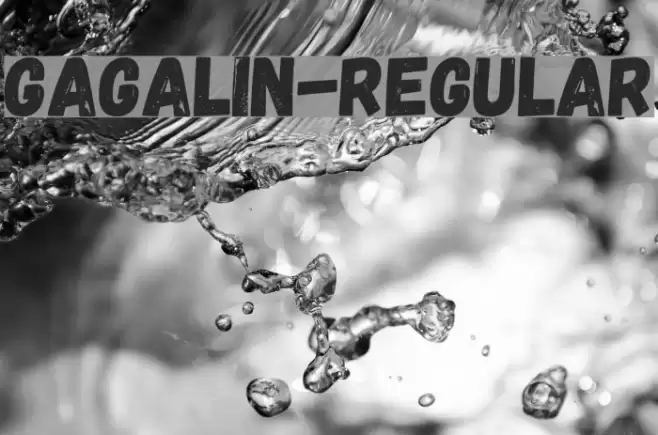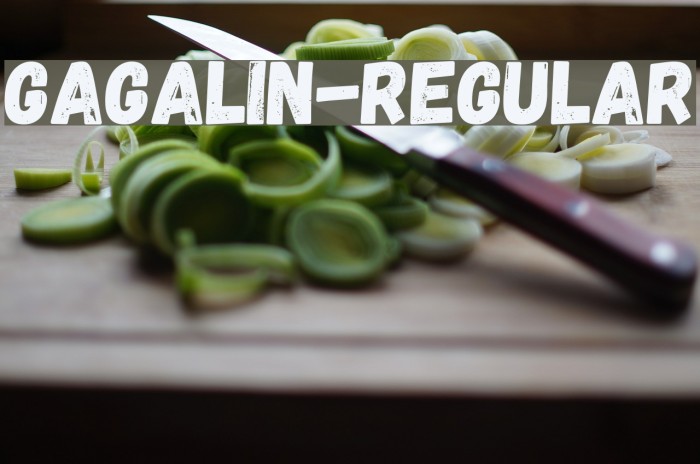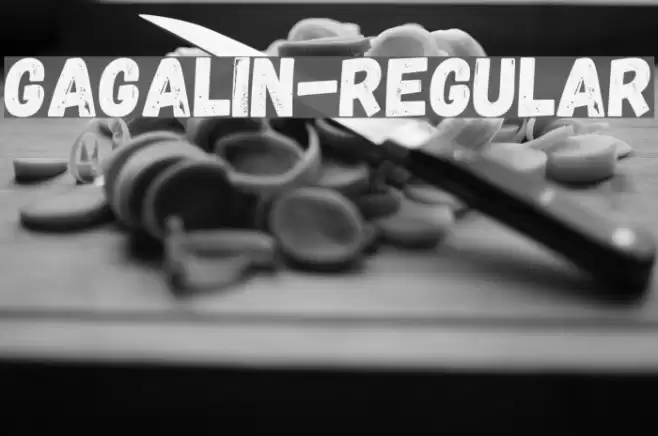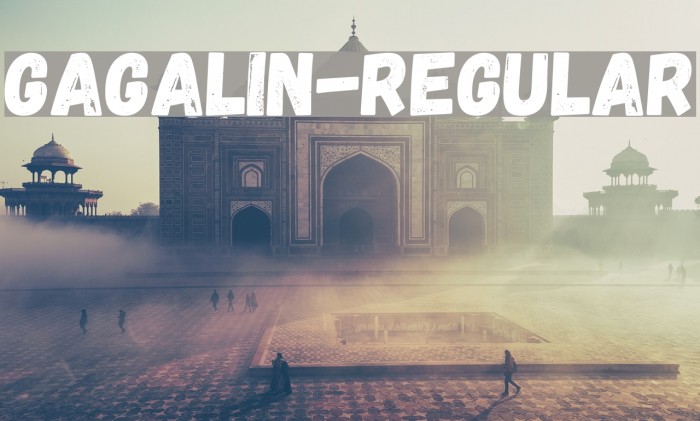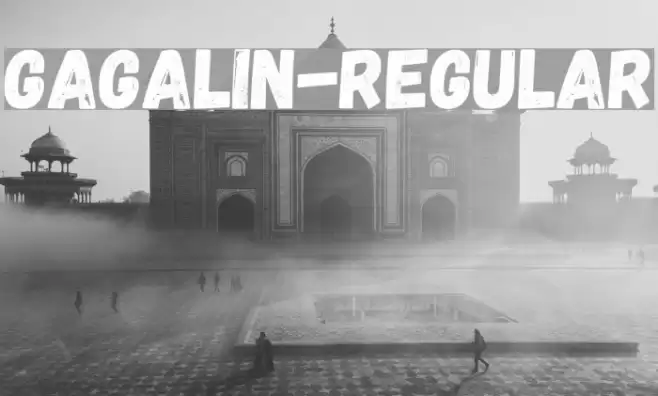
Gagalin-Regular Font
| Общий стиль | Vintage |
| Рекомендуемые проекты | Ideal for posters, branding, packaging, and any design needing a bold, vintage touch. |